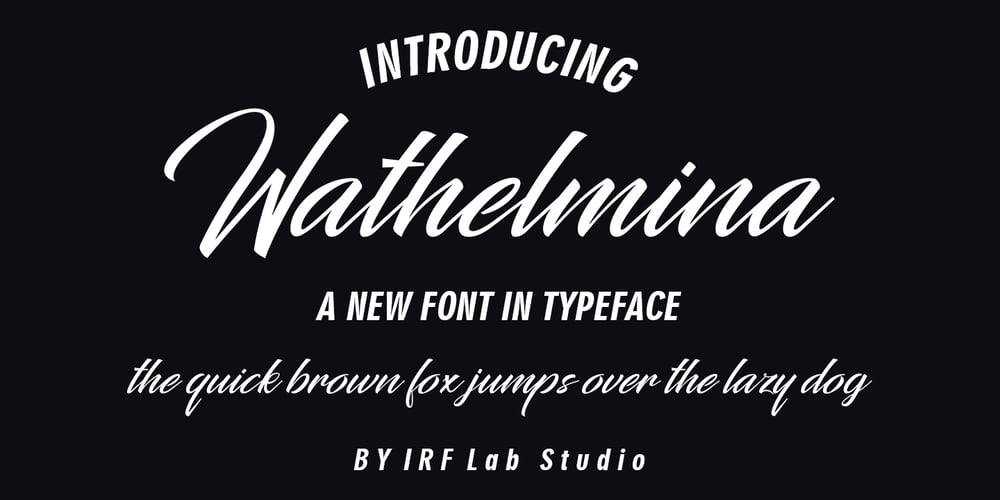
Wathelmina
Wathelmina font
Wathelmina Font Family was designed by M Irvan Syouqi S and published by IRF Lab Studio. Wathelmina contains 1 styles and family package options. Wathelmina Script is a very readable Script typeface, get a touch of bold, classic and fun Vintage Script fonts, Features glyph and opentype with alternative styles. Can be used for various purposes. such as posters, t-shirts, signboards, logos, news, badges etc. To activate the OpenType Stylistic alternative, you need a program that supports OpenType features such as Adobe Illustrator CS, Adobe Indesign & CorelDraw X6-X7, Microsoft Word 2010 or a later version.Wathelmina Script is coded with PUA Unicode, which allows full access to all additional characters without having to design special software. Mac users can use Font Book, and Windows users can use Character Map to view and copy any additional characters for pasting into your favorite text editor / application.